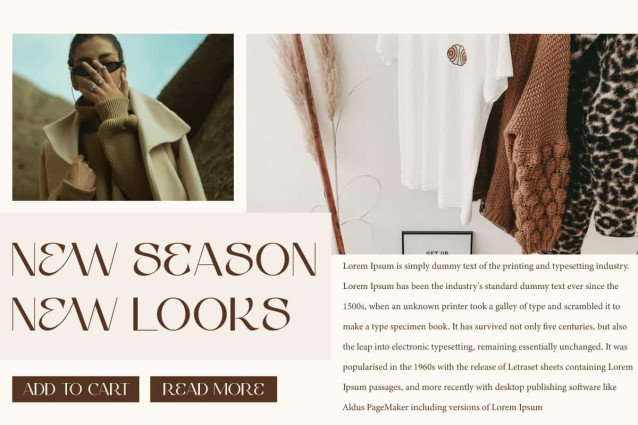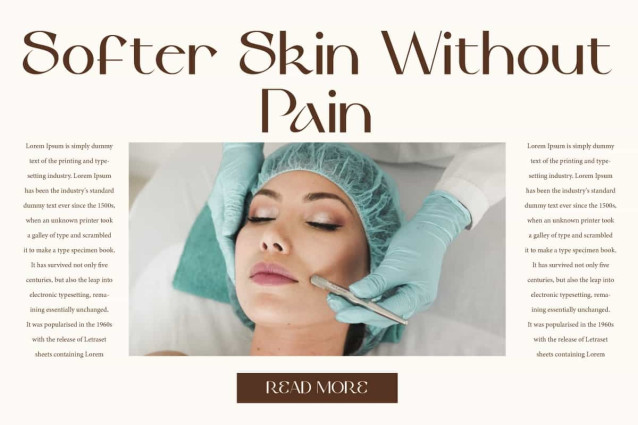
Evandra Jorge Font
Evandra Jorge Font is an elegant and attractive sans serif display font, designed with a touch of luxury and modernity. This font will be perfect for any project, can be used for advertising, blog, branding, custom design, invitation, label, quotes, poster, stationery, website, and more!
Evandra Jorge Font includes full set of Uppercase and Lowercase Basic Characters, Numerals, Punctuation, and Symbol. This font provides an exclusive Ligature character that perfect for various business, such as accessories and jewelry, beauty product, event or wedding organizer, fashion, florist, furniture, real estate, spa salon, etc.